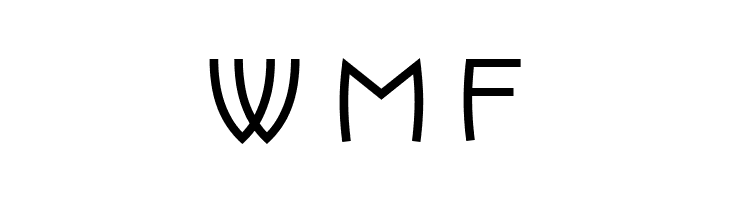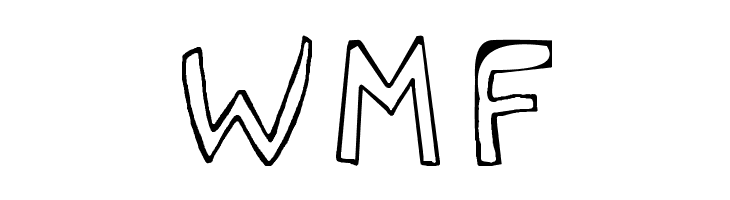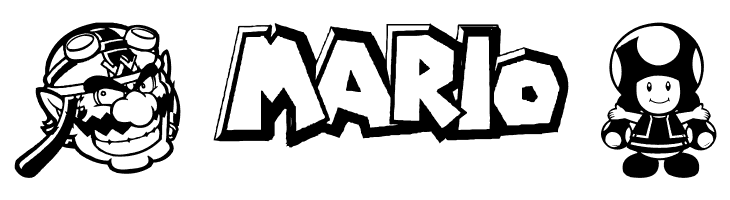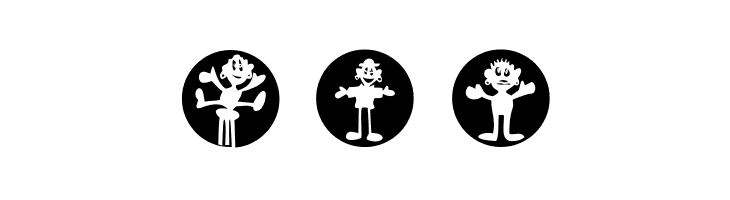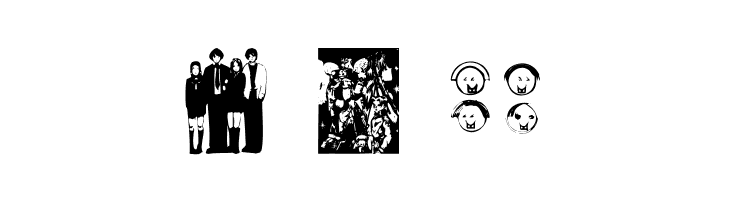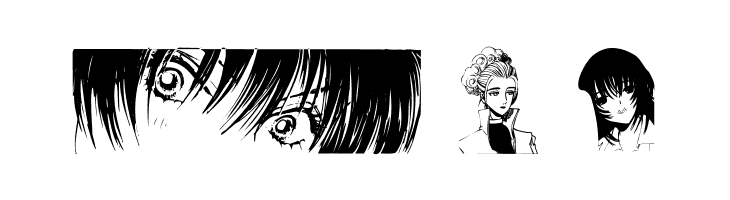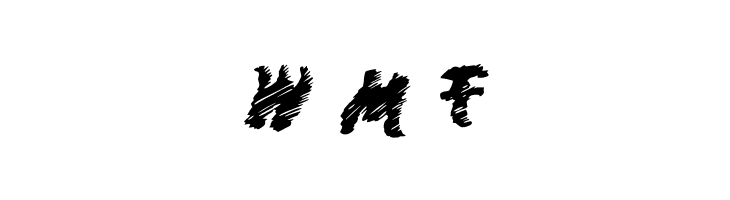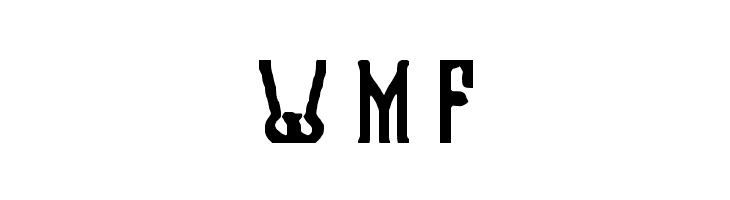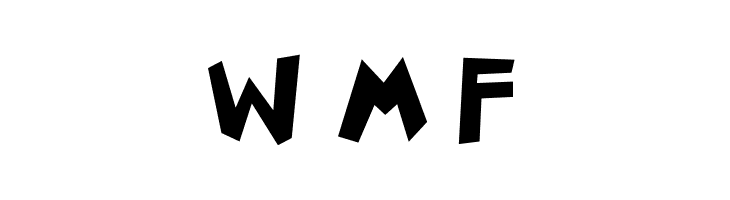
• Malkmus_erc_001
A playful, hand-drawn font with a casual and informal style.
• MangaManjana
A decorative manga-inspired font with illustrated characters.
• MangaTypes
Expressive manga illustrations form each character.
• MangoScribble-Regular
A bold, hand-drawn font with a scribbled texture and playful style.
• ManneKen
A whimsical decorative font featuring cartoon figures in circular frames.
• maran orthodox church
• March Madness NF
A playful, dynamic font with geometric and organic shapes.
• Mariana Peluso
• Mario & Luigi
A bold, angular font with a playful, retro video game vibe.
• Mario and Luigi